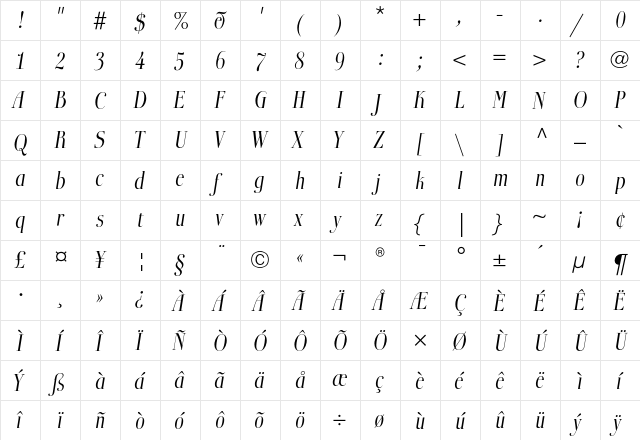
BoberiaLL LightItalic
Design Context for BoberiaLL Typeface
BoberiaLL offers clean, dependable letterforms without strong stylistic allegiance, making it a practical choice for designers who need flexibility. The slanted form adds forward momentum and visual energy. The delicate stroke weight brings airiness and refinement to layouts.
Pro Tip: Use BoberiaLL for emphasis, pull quotes, and subheadings where its slanted energy can add rhythm to the layout.